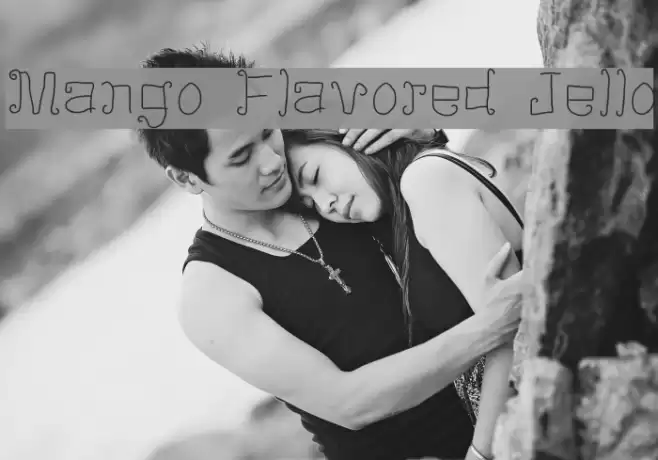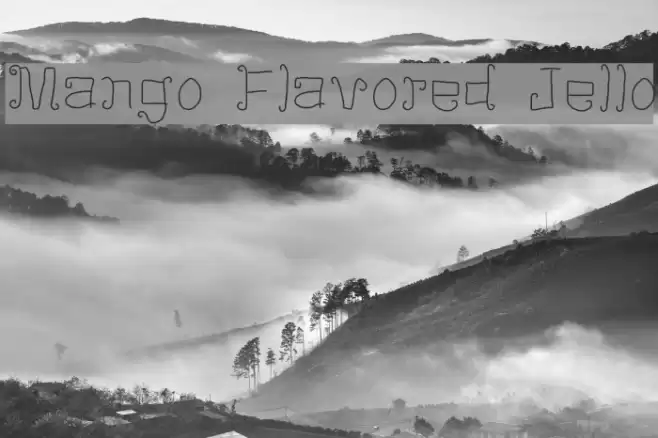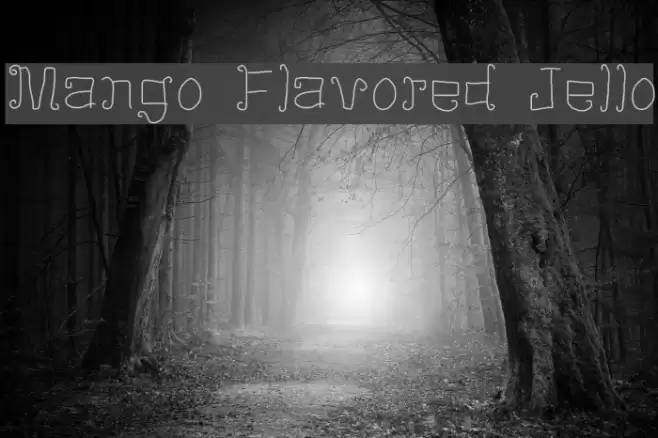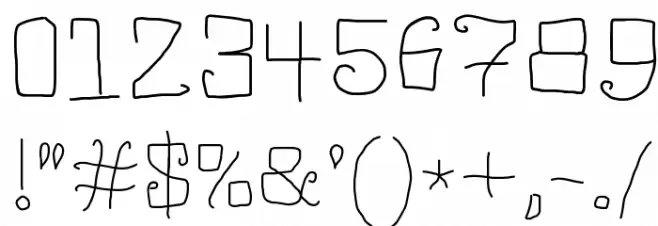
Mango Flavored Jello Font
Mango Flavored Jello Description
This font features a whimsical and playful design, characterized by its curly and looped strokes that add a sense of fun and creativity. The letters are crafted with a unique flair, where each character seems to dance across the page. The uppercase and lowercase letters maintain a consistent style, with rounded edges and decorative swirls that enhance their visual appeal. The numbers follow the same playful theme, making them stand out with their distinctive curves. Special characters are equally imaginative, adding a touch of personality to any text. This font is perfect for projects that require a lighthearted and artistic touch.
A whimsical and playful font with curly, looped strokes and decorative swirls from Uncategorized fonts.
- Proposed Projects: Ideal for children's books, greeting cards, playful branding, and creative posters.
- Overall Style: Playful, Whimsical